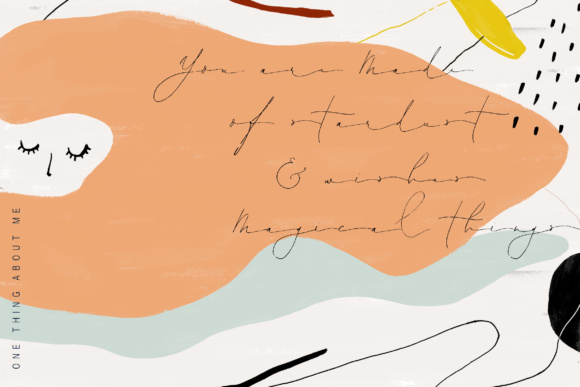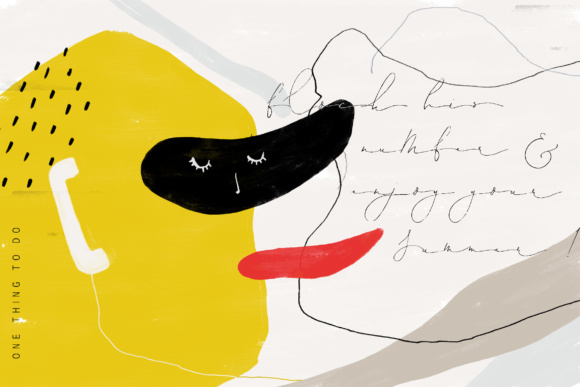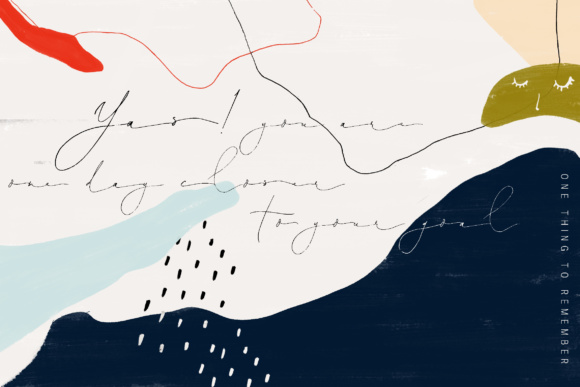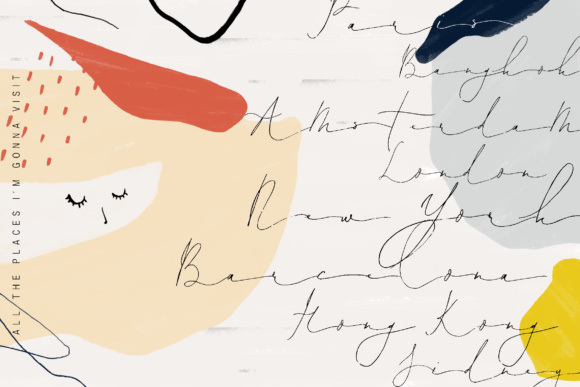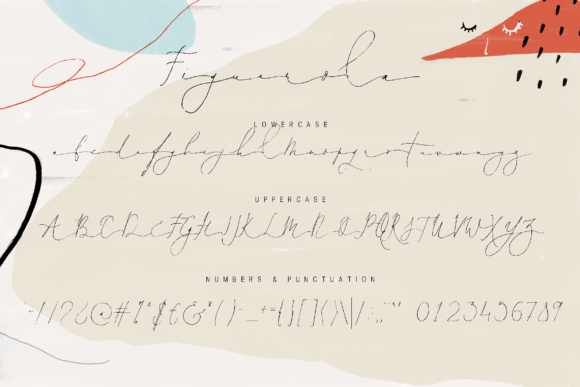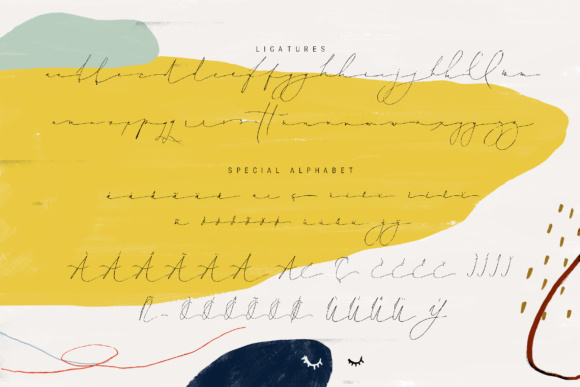
Introducing Figuerola Font: Elevate Your Designs with a Contemporary Twist
In the realm of typography, a font can make all the difference in the aesthetic and effectiveness of a design. For designers and crafters seeking a modern and versatile typeface, Figuerola Font emerges as an exceptional choice. This contemporary font, available in two distinct styles, offers the flexibility to create unique and captivating designs that cater to a wide array of projects.
What is Figuerola Font?
Figuerola Font is a thoughtfully crafted typeface designed to meet the demands of modern design. Its two styles provide a robust foundation for creativity, allowing designers to mix and match to achieve a look that is distinctly their own. Whether you’re working on a blog, logo, social media content, branding materials, posters, quotes, wedding cards, or any other project, Figuerola Font is engineered to enhance your design with its clean and contemporary appeal.
Key Features of Figuerola Font
- Contemporary Design: Figuerola boasts a modern aesthetic that instantly elevates the visual appeal of any design.
- Two Styles: The availability of two styles within the Figuerola Font family allows for a versatile approach to design, enabling the creation of dynamic and engaging text.
- Mix and Match: Combining the two styles of Figuerola Font opens up a plethora of creative possibilities, making it easy to craft a unique look that stands out.
- Wide Range of Applications: From blogs and logos to social media posts, branding elements, posters, quotes, and wedding cards, Figuerola Font is incredibly versatile.
Best Use Cases for Figuerola Font
The adaptability of Figuerola Font makes it suitable for various design projects. Here are some of the best use cases:
- Blogs: Enhance your blog’s readability and visual appeal with Figuerola Font, making your content more engaging for readers.
- Logos: Create a lasting impression with a custom logo designed using Figuerola Font, perfect for branding and identity purposes.
- Social Media: Stand out on social media platforms with eye-catching posts and stories crafted with Figuerola Font.
- Branding: Consistency in branding is key, and Figuerola Font can help maintain a modern and cohesive visual identity across all your materials.
- Posters and Quotes: Make a bold statement with posters and quotes designed using Figuerola Font, ideal for both digital and print formats.
- Wedding Cards: Add a touch of elegance and modernity to wedding cards and invitations with Figuerola Font.
Why Choose Figuerola Font?
In a sea of fonts, Figuerola stands out for several reasons:
- Legibility: Despite its contemporary design, Figuerola Font maintains high legibility, ensuring your message is conveyed clearly.
- Uniqueness: The combination of two styles within the Figuerola Font family allows designers to create unique pairings that are not easily replicable with other fonts.
- Versatility: Its suitability for a wide range of projects makes Figuerola Font a valuable addition to any designer’s toolkit.
| Font Name | Figuerola Font |
Figuerola Font is more than just a typeface; it’s a design solution for those looking to infuse their projects with a modern and distinctive touch. Its contemporary design, combined with the flexibility of two styles, makes it an invaluable resource for designers and crafters alike. Whether you’re aiming to enhance your blog, create a memorable logo, or simply add a professional flair to your social media posts, Figuerola Font is poised to become your go-to choice. Embrace the creative possibilities with Figuerola Font and elevate your designs to new heights.